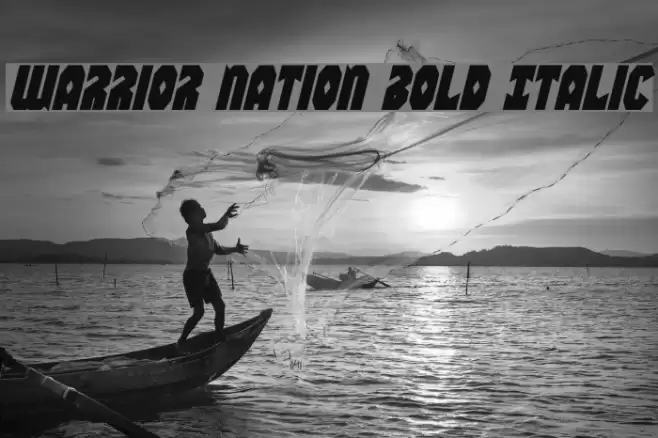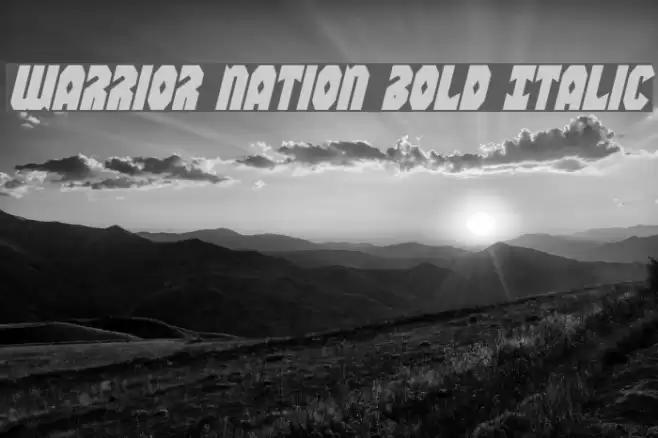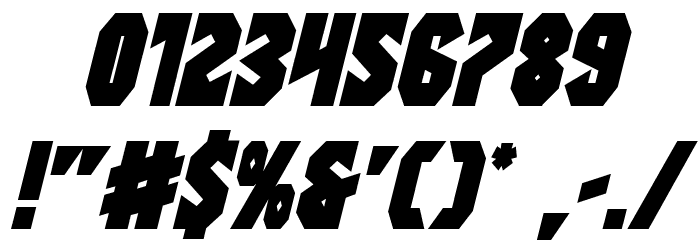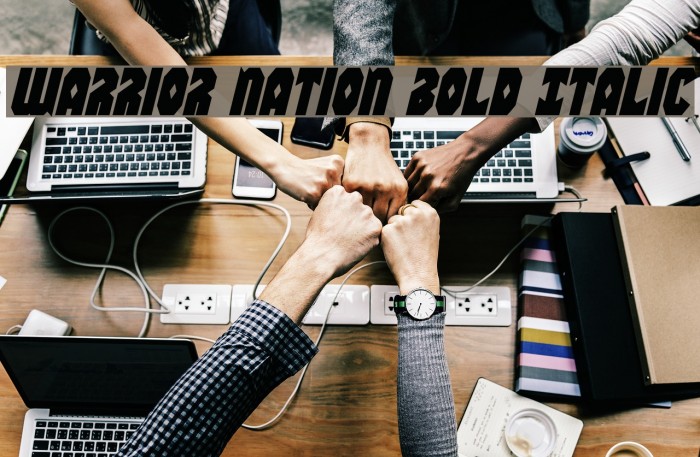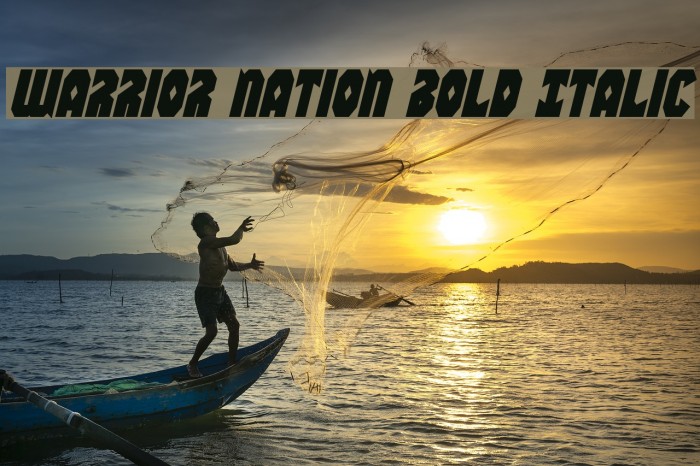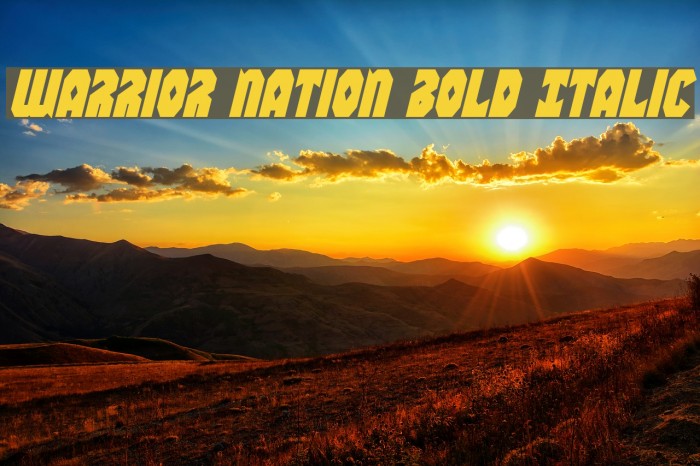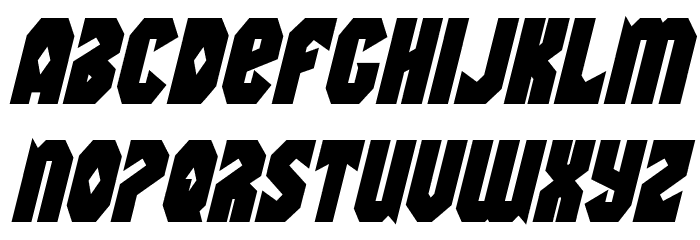
Warrior Nation Bold Italic Font
Warrior Nation Bold Italic Description
This font features a bold and italicized style with a strong, angular design. The characters are sharply cut with a dynamic slant, giving a sense of movement and power. The uppercase and lowercase letters maintain a consistent weight and width, contributing to a cohesive appearance. The numbers and special characters follow the same bold and angular theme, ensuring uniformity across all glyphs. This font is highly legible at larger sizes, making it ideal for impactful headlines and titles. The overall aesthetic is modern and aggressive, suitable for projects that require a strong visual presence.
A bold, italicized font with angular, dynamic characters from Uncategorized fonts.
- Proposed Projects: Ideal for sports branding, action movie posters, video game titles, and dynamic advertising campaigns.